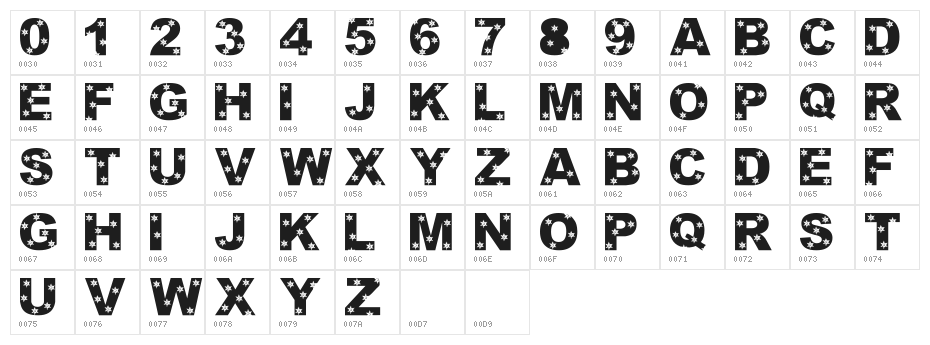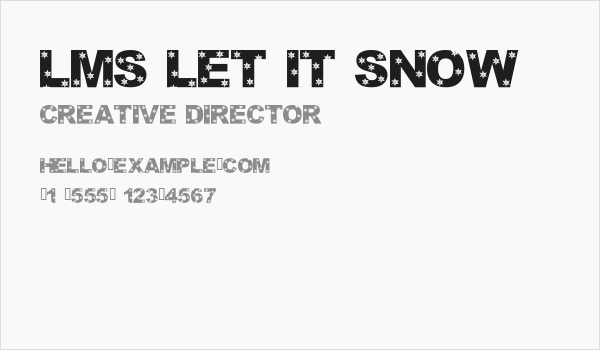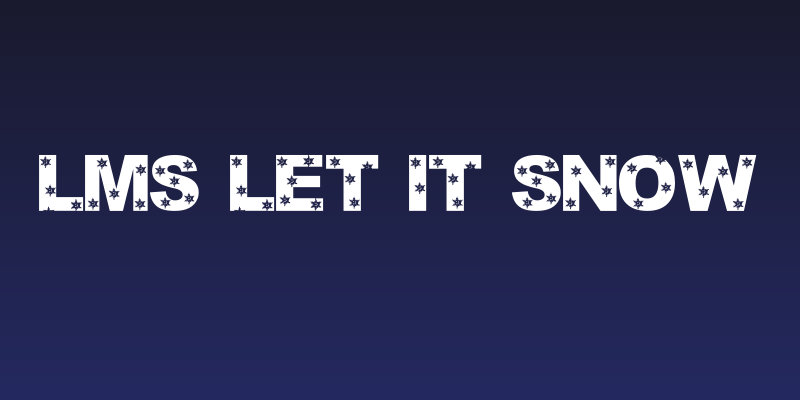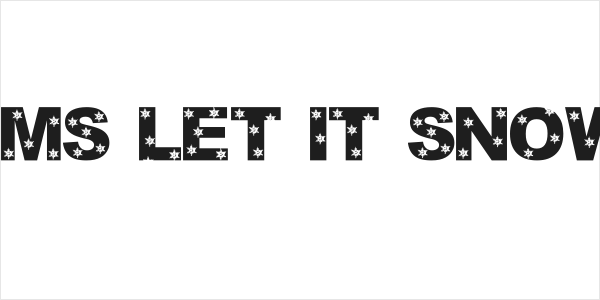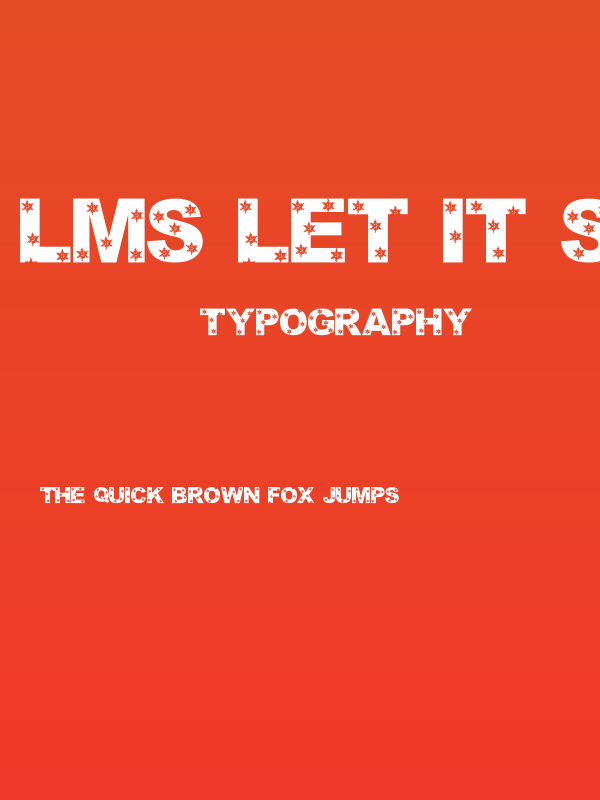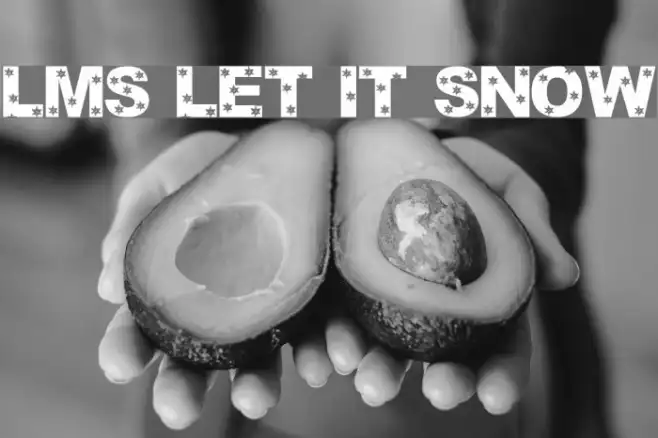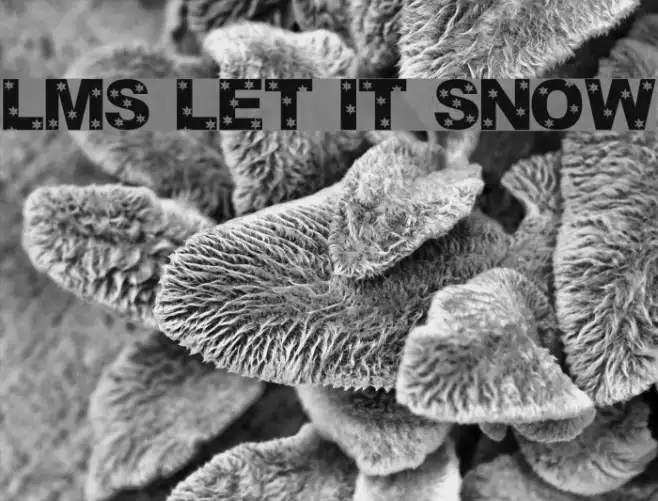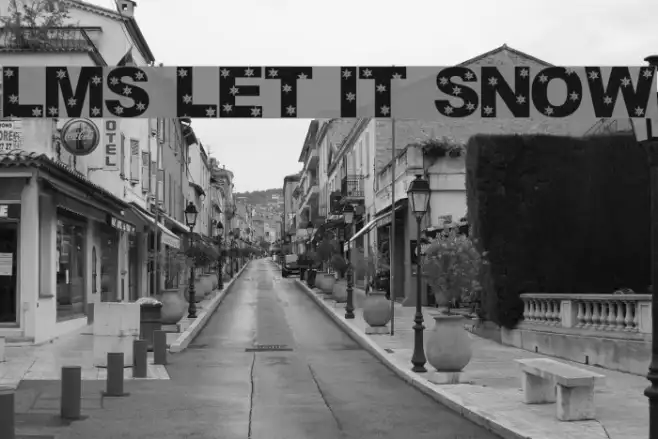
LMS Let It Snow Font
LMS Let It Snow Description
This decorative font features bold, uppercase letters filled with snowflake patterns, evoking a festive, wintery feel. The characters are robust and eye-catching, making them ideal for holiday-themed designs. The snowflake details add a playful and whimsical touch, perfect for capturing the essence of the winter season. The font maintains a consistent weight and width throughout, ensuring readability while still delivering a strong visual impact. Its unique style is well-suited for projects that aim to convey a sense of joy and celebration.
| Proposed Projects | Ideal for holiday cards, festive banners, winter event posters, and seasonal advertisements. |